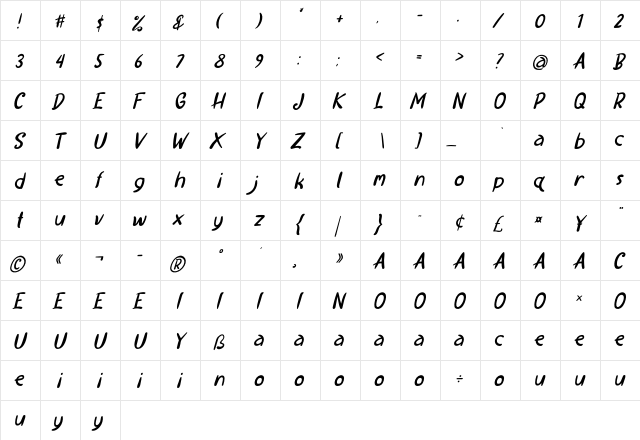
Recipety Italic Regular
Design Context for Recipety Italic Typeface
Recipety Italic takes a measured approach to typography — its balanced proportions and neutral character make it a reliable workhorse for both digital and print work. The dynamic lean of this cut emphasises speed and emphasis in any layout.
Pro Tip: Use Recipety Italic for emphasis, pull quotes, and subheadings where its slanted energy can add rhythm to the layout.